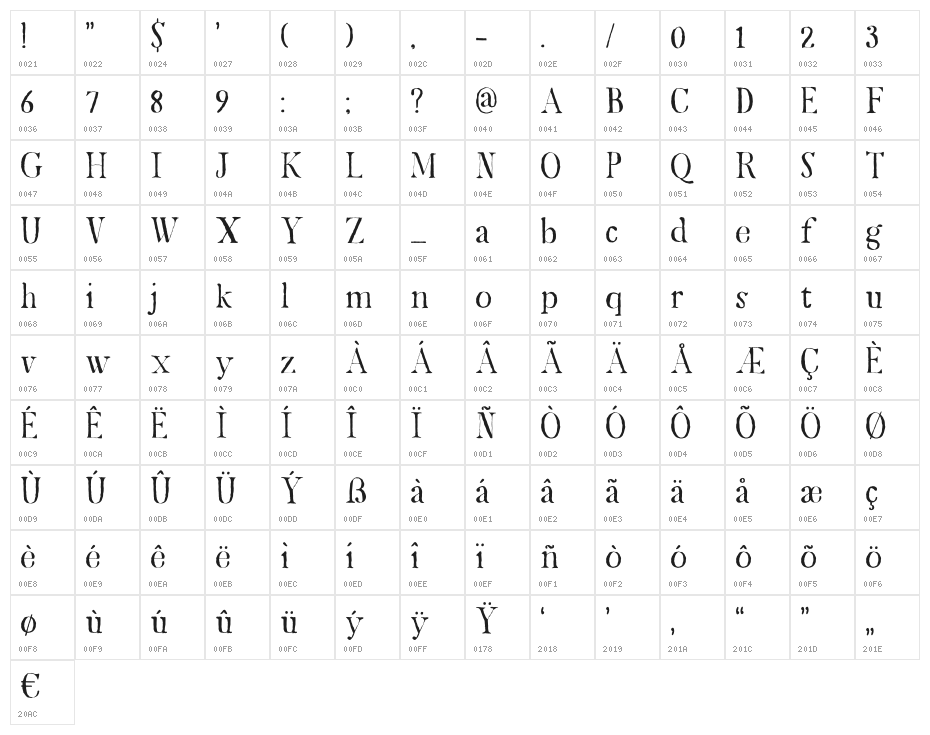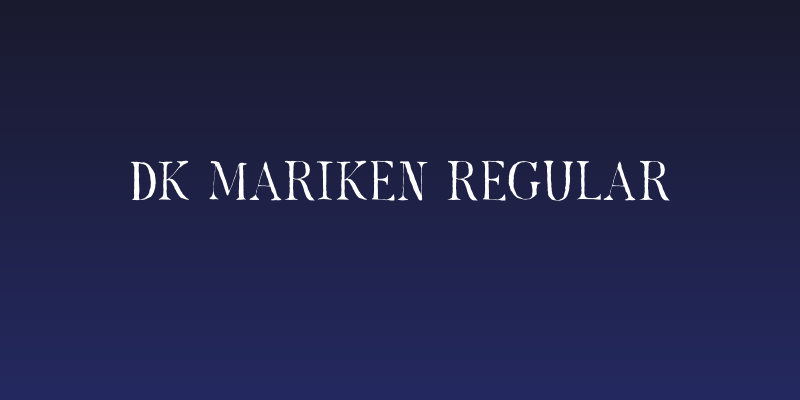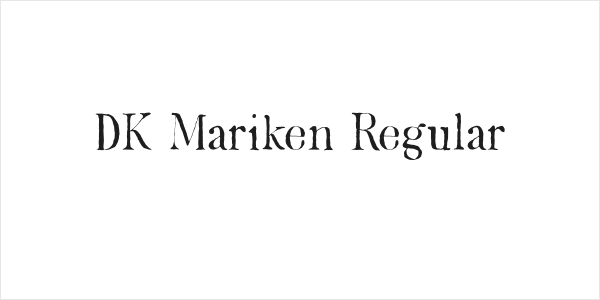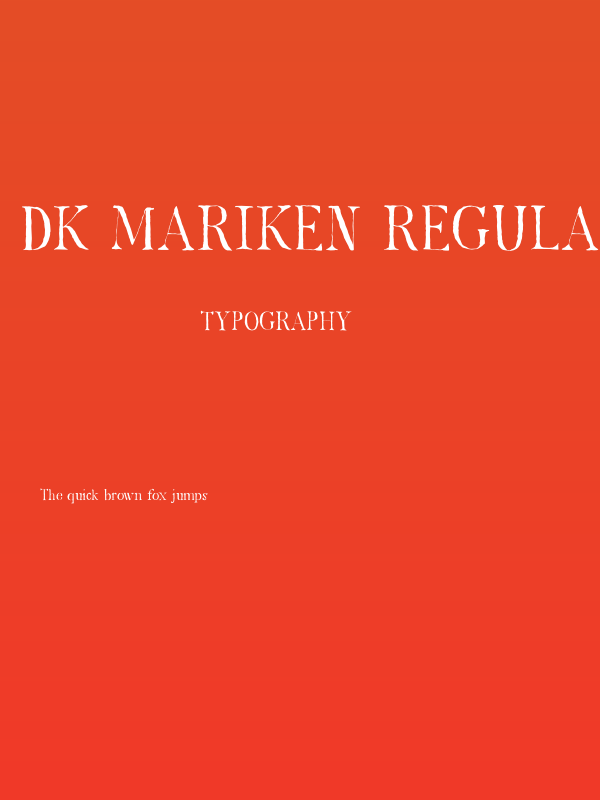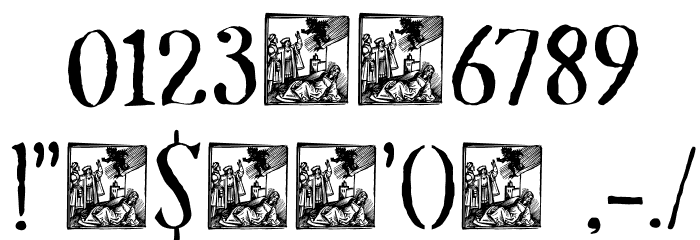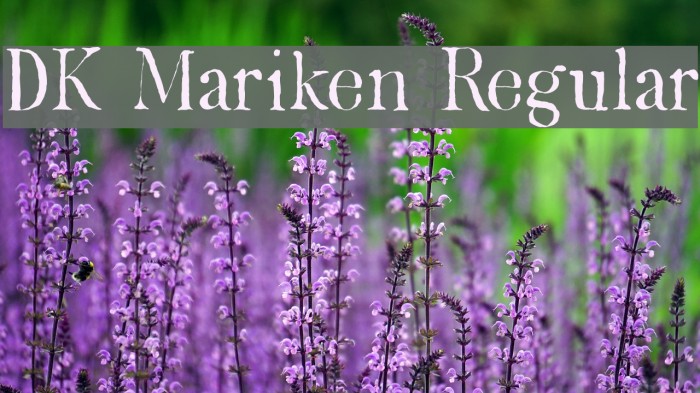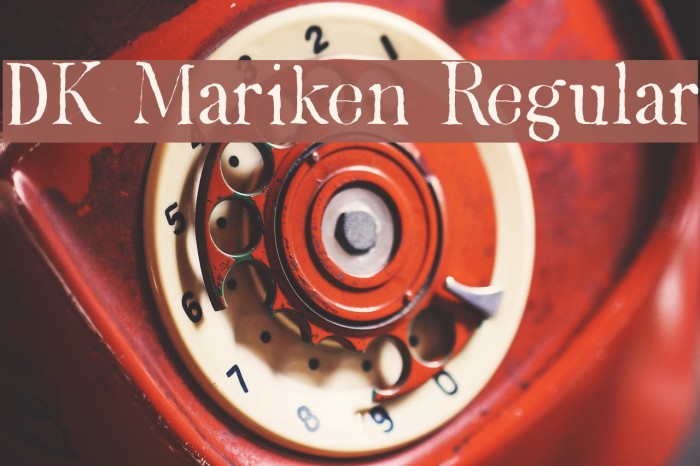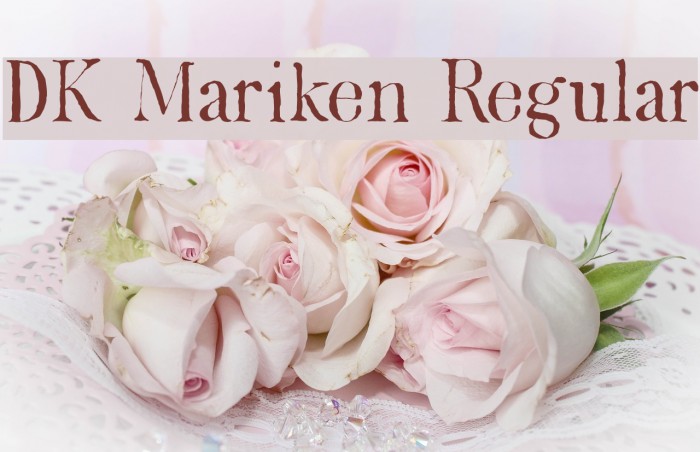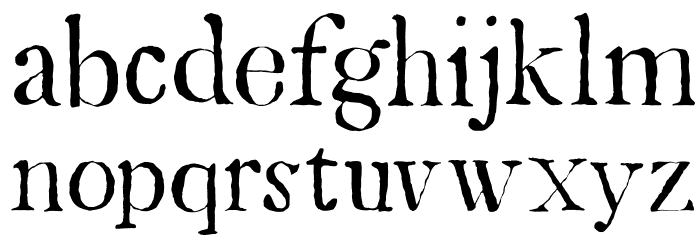
DK Mariken Regular Font
This font exhibits a distinctive and artistic style, characterized by its uneven, hand-drawn appearance. The letters have a whimsical and slightly irregular form, giving them a unique, vintage charm. The uppercase letters are bold and prominent, while the lowercase letters maintain a consistent style with a playful touch. The numbers are crafted with the same artistic flair, adding to the font's overall cohesive look. Special characters are included, maintaining the same stylistic elements. This font is perfect for projects that require a touch of creativity and historical elegance.
| Use Case | Headlines, Logos, Artistic projects |
| Proposed Projects | Ideal for creative projects such as book covers, posters, invitations, and branding that seek a historical or artistic touch. |